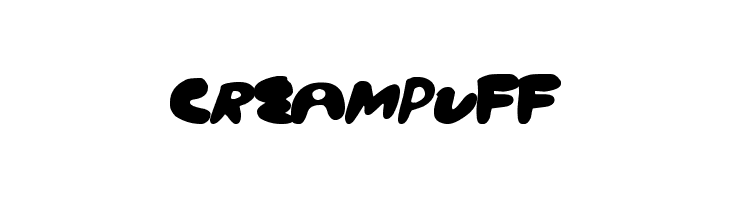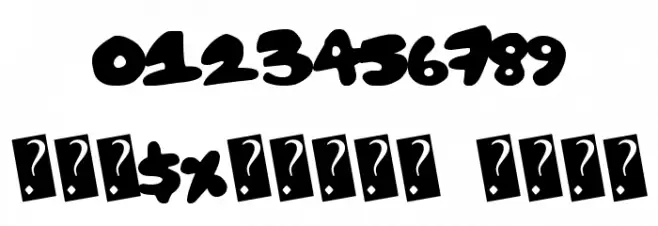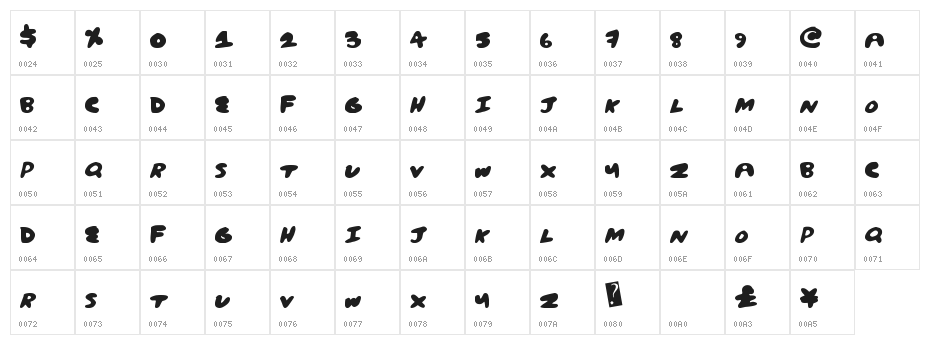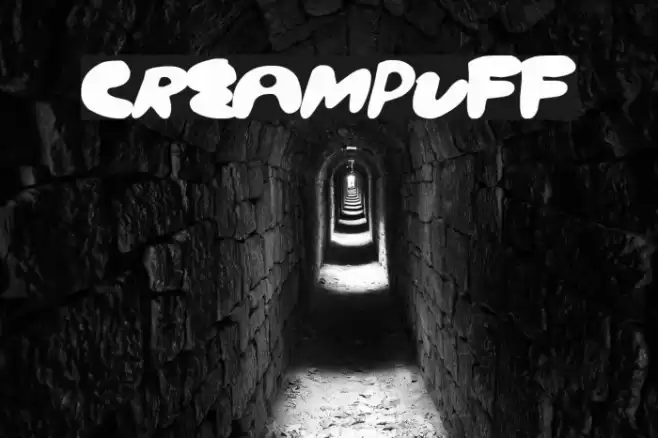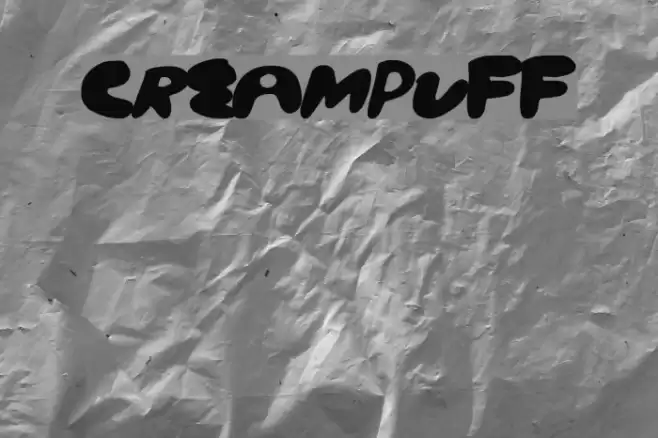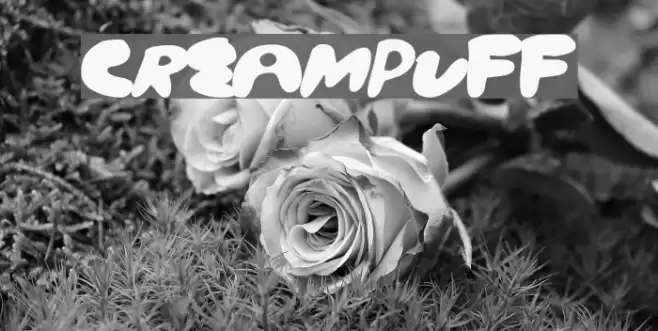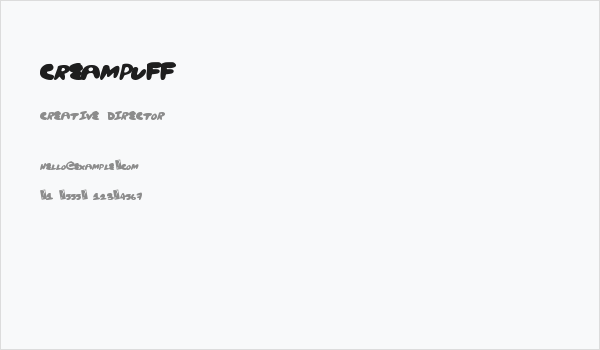
CreamPuff Font
CreamPuff Description
This playful and bold font features a handwritten style with thick, rounded strokes that give it a friendly and approachable appearance. The characters are slightly slanted, adding a dynamic and energetic feel. The uppercase and lowercase letters maintain a consistent style, with smooth curves and a uniform thickness throughout. Numbers and special characters are designed with the same playful aesthetic, making the font versatile for various uses. The overall design is cohesive, with a whimsical charm that stands out.
| Use Case | Logos, Posters, Greeting Cards |
| Proposed Projects | Ideal for children's books, playful branding, greeting cards, and casual posters. |